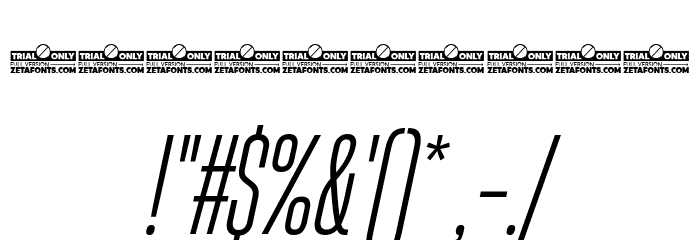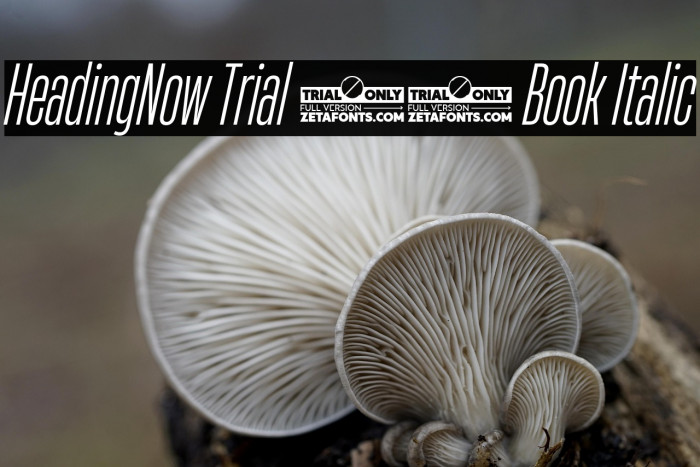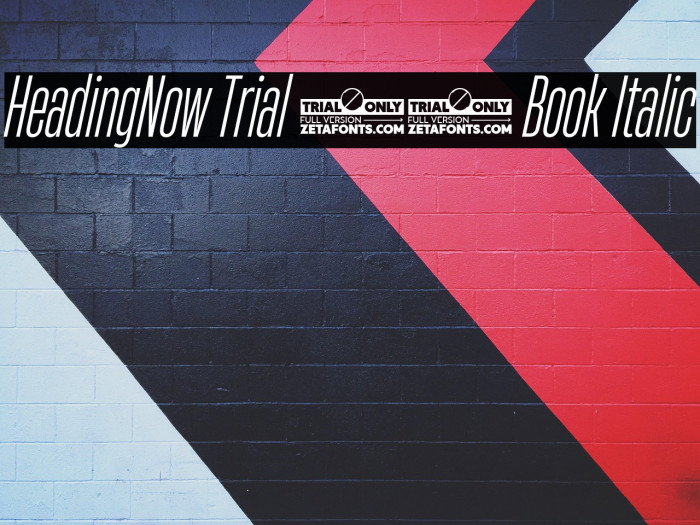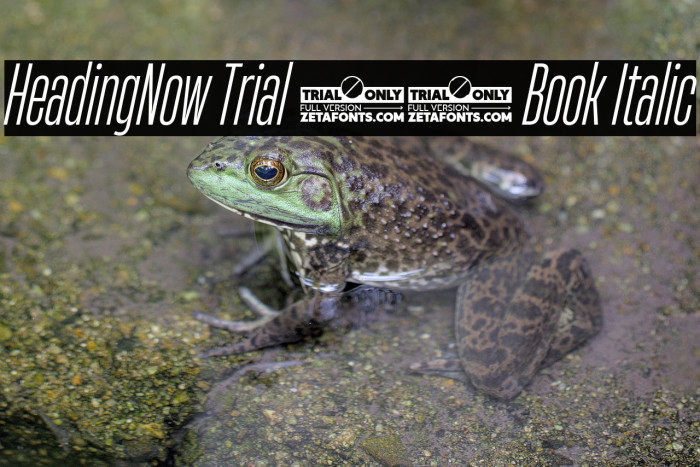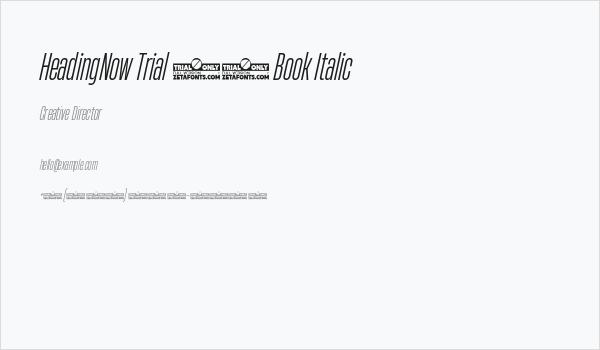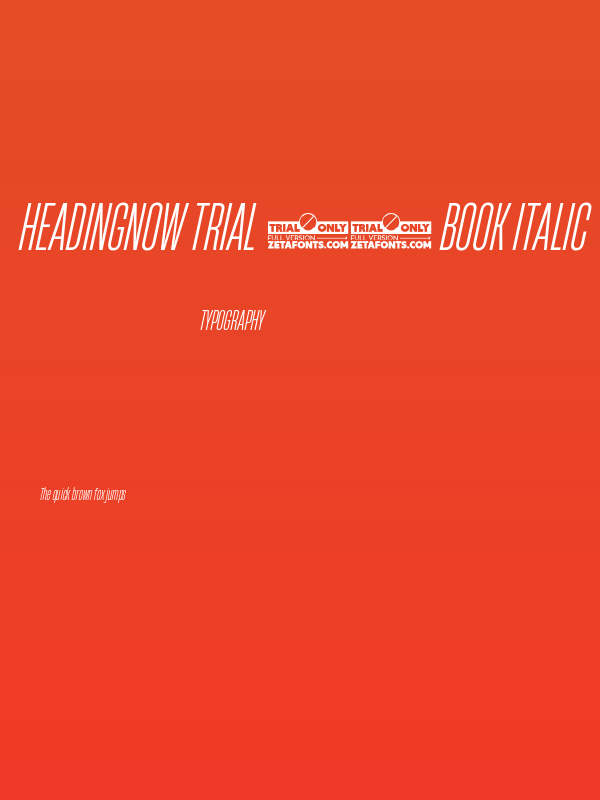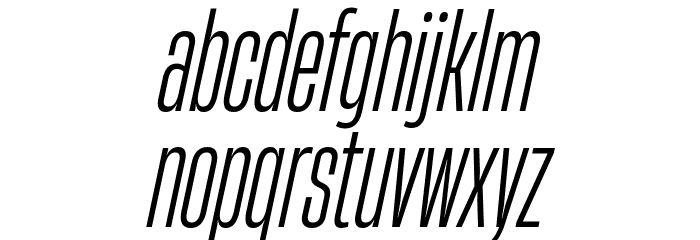
HeadingNow Trial 23 Book Italic Font
HeadingNow Trial 23 Book Italic Description
This font features a sleek and modern design with a distinct italic slant, giving it a dynamic and forward-moving appearance. The characters are elongated and condensed, creating a sense of elegance and sophistication. The strokes are consistent in weight, providing a uniform look across all characters. The uppercase and lowercase letters maintain a harmonious balance, while the numerals and special characters are designed to complement the overall style. This font is ideal for projects that require a contemporary and stylish touch.